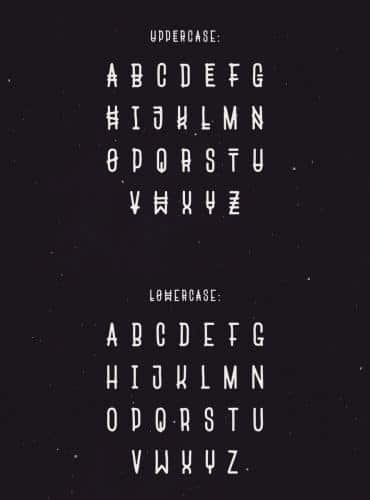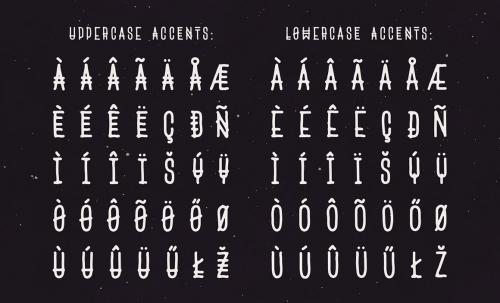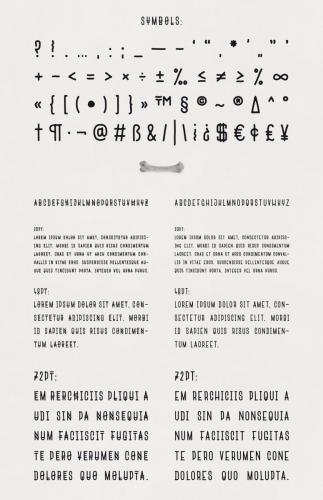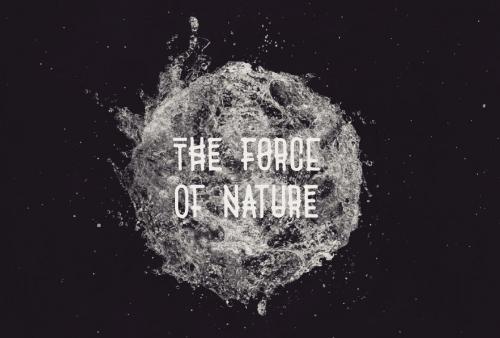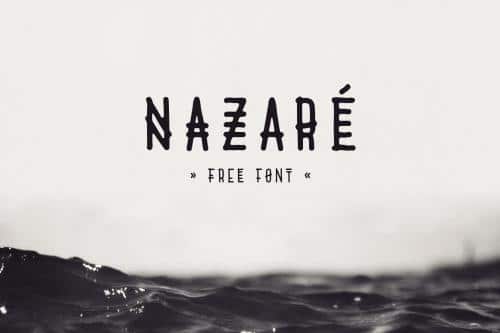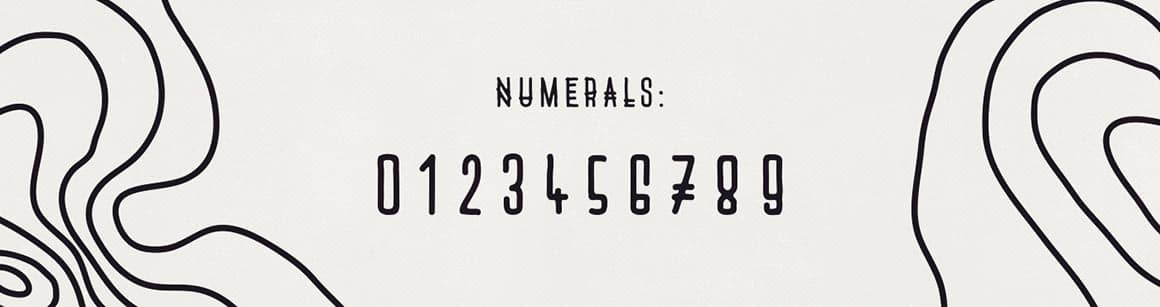
Nazaré is a font inspired by the town of the same name in Portugal. It’s a condensed upper-case font with hand drawn lines, roundings and a bit of a tribal touch.
The lowercase charac-ters are simpler forms of the uppercase ones, enabling to add variation to the text when the two are mixed, leading to a natural hand drawn feel. All the letters are uniquely drawn, so if you’re looking for more variations, you can make use of the accented characters too.
The town of Nazaré is famous for some of the world’s highest waves, some as high as 23m, at this place you can really feel the shear force of nature from first hand.
As you watch the raging ocean, you feel oddly one with mother nature as the incredibly high waves take your imagination back to prehistoric times, it is really a unique and uplifting experience.